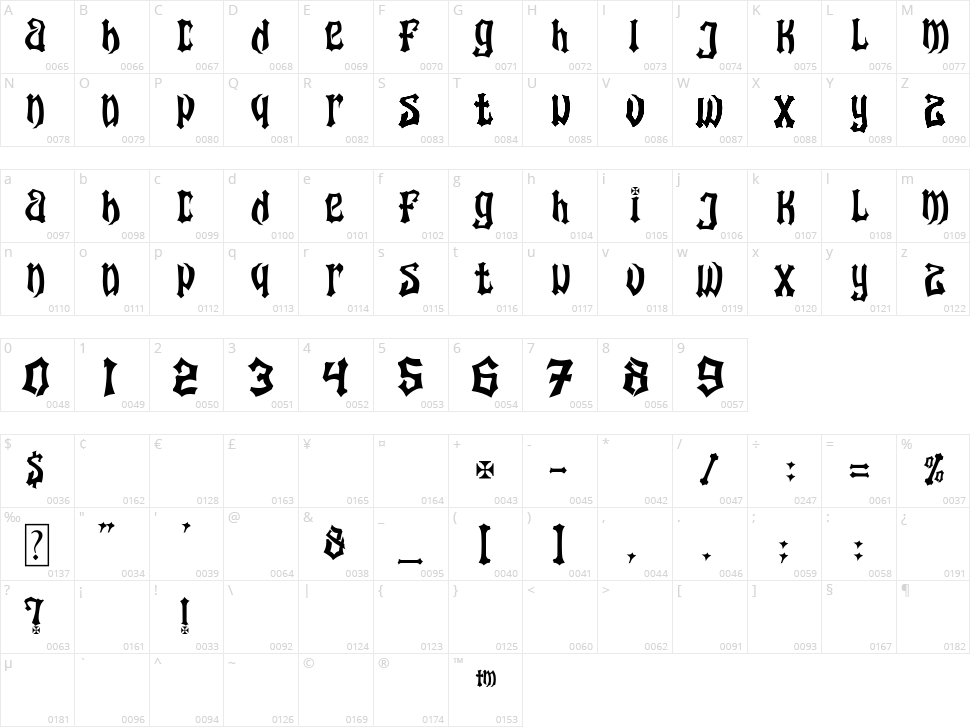
Wolf Bones
Note of the author WOLFBONES is modern blackletter font with wolf bone character.
This font inspired by SERINGAI Band, my favorite band from indonesia.
this font suitable for poster, clothing, magazine, logo, branding, t-shirt etc.